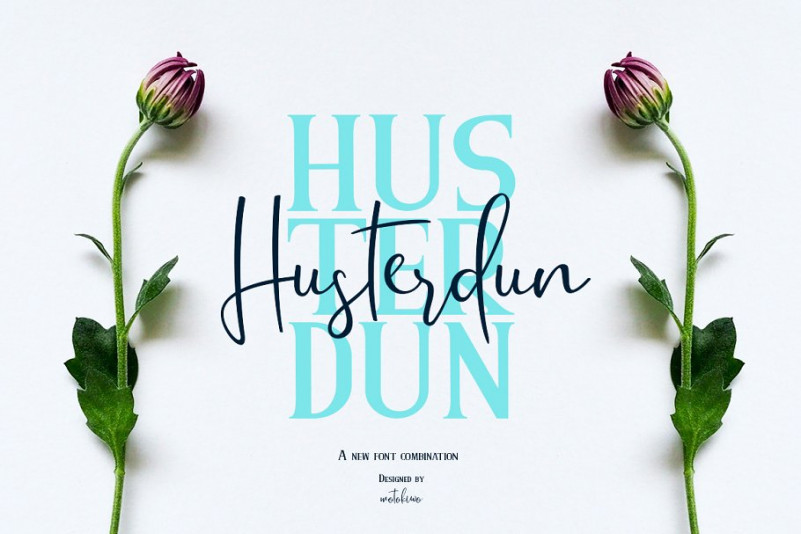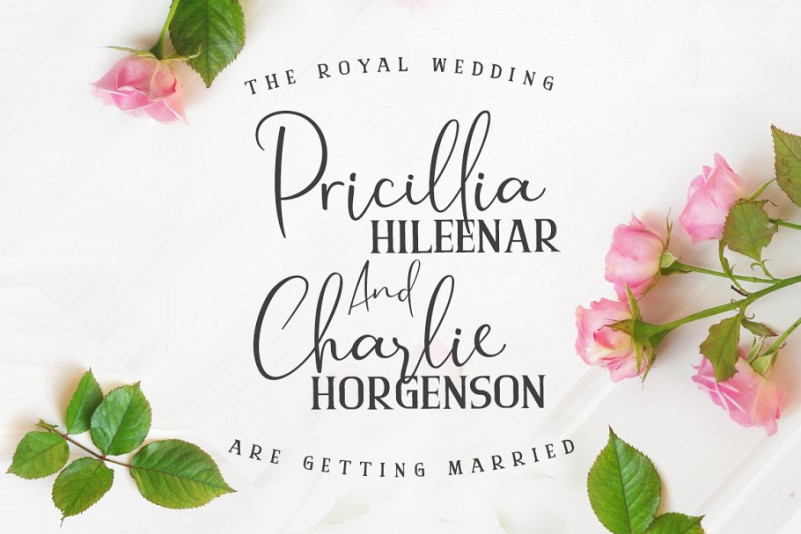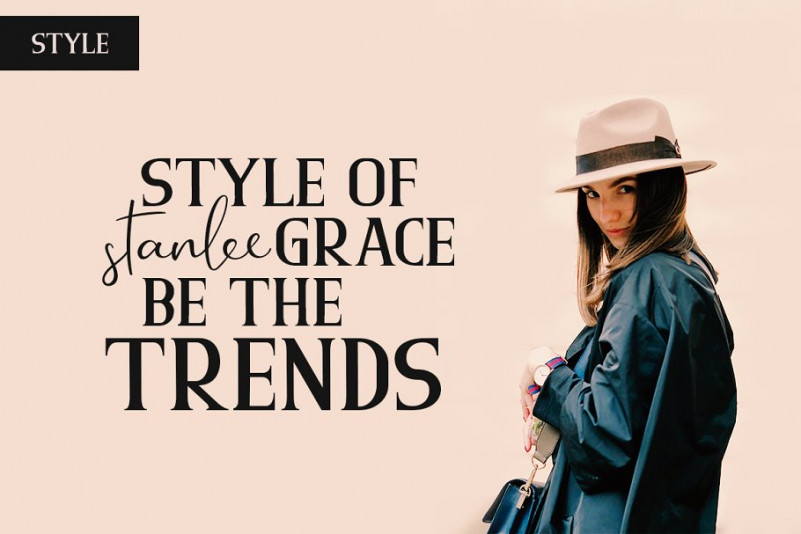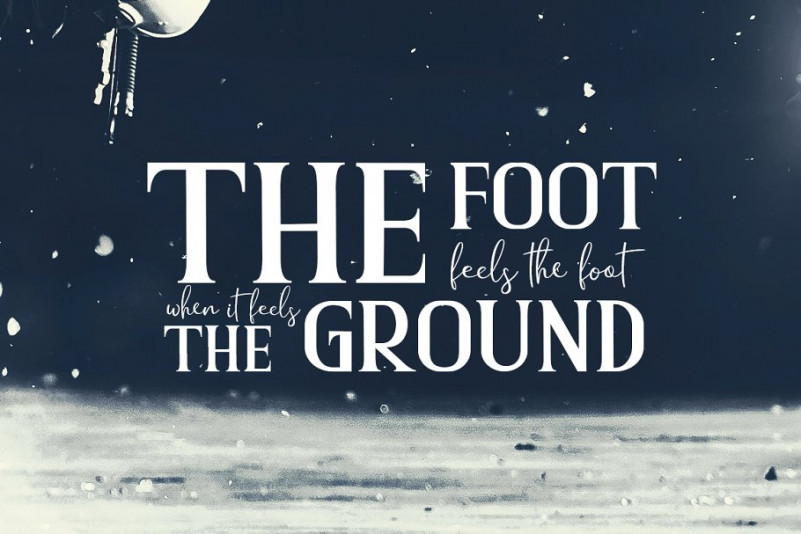
Husterdun Font Duo
Say hello to the Husterdun Script & Serif! This a carefully crafted and perfectly balanced set of elegant serif and realistic script typefaces. With a stylish serif font and a free-flowing, expressive script companion. It’s designed and shared by Motokiwo. Husterdun Font Duo – A dynamic pair of serif and script fonts. Elegance is the basic principle used to design Husterdun fonts, both of them are sophisticated. The combination between the two fonts gives a classy touch to every design, including social media posts, logo, branding design, product design, wedding design, advertisement design, poster, quote, and many more.